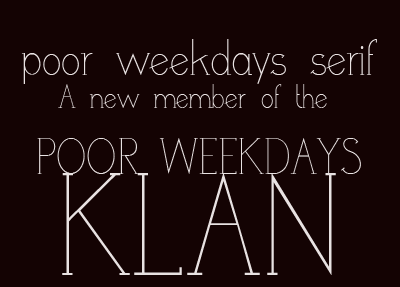
Free poor weekdays serif Font
Introducing you to the absolutely beautiful free poor weekdays serif font. Go give some love to Font Space for creating this top-notch free typeface. This is absolutely fancy font so you can easily make world-class designs.